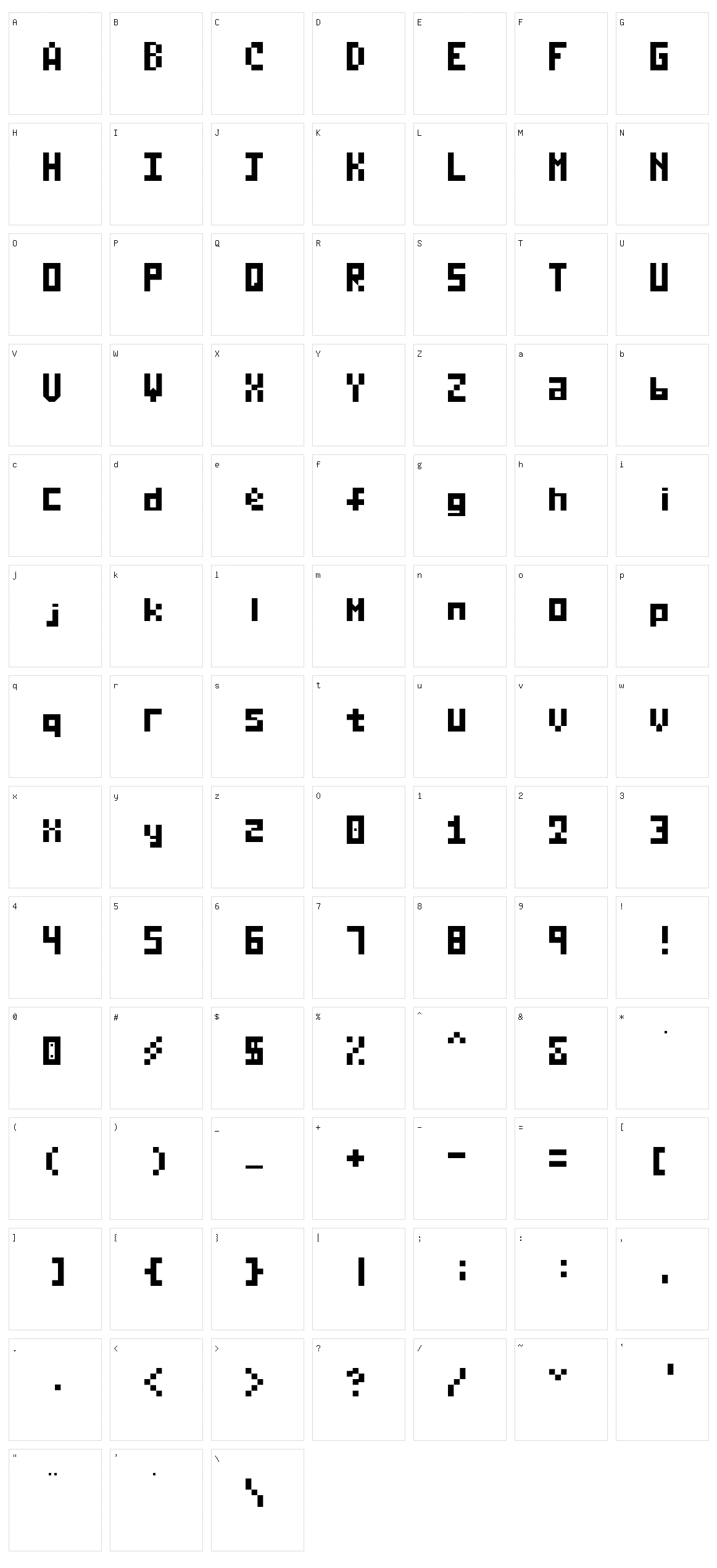
The free font Ray Vasaurus is carefully designed by Chris M Kraski, showcasing a thoughtful balance of creativity and usability and falls under the Square font style. When you download the ZIP file, it contains only 3.15 KB of font files, making it lightweight and quick to download. Please review the license details below to understand permitted usage and distribution rights. If license information is not available, we recommend using this font for personal projects only or contacting the author directly for commercial usage permissions.